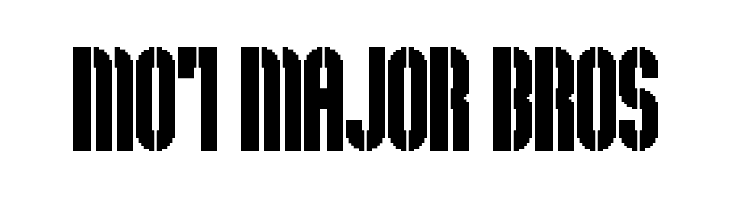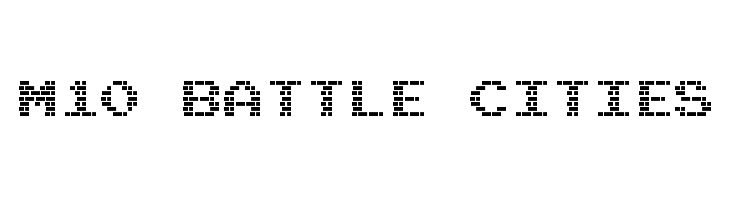
• M05_DOKOITSU K
A bold, pixelated font with a retro digital aesthetic.
• M06_QUADRA
A dot matrix style font with a futuristic and digital appearance.
• M07_MAJOR BROS
A bold, condensed font with high contrast and a vintage flair.
• M08_SUPER MAJOR BROS
A bold, pixelated font with a retro video game aesthetic.
• M09_ICE CLIMBING
A bold, geometric font with a modern, industrial aesthetic.
• M10_BATTLE CITIES
A pixelated, retro-style font inspired by classic video game graphics.
• M11_BREAKING CREW
A bold, geometric font with a modern, digital aesthetic.
• M12_MACH BIKER
A bold, geometric font with an industrial and digital aesthetic.
• M13_SCAD DESTROYER
A bold, geometric font with a modern, digital aesthetic.
• M14_DIG DUB
A bold, geometric font with a digital, pixelated style.